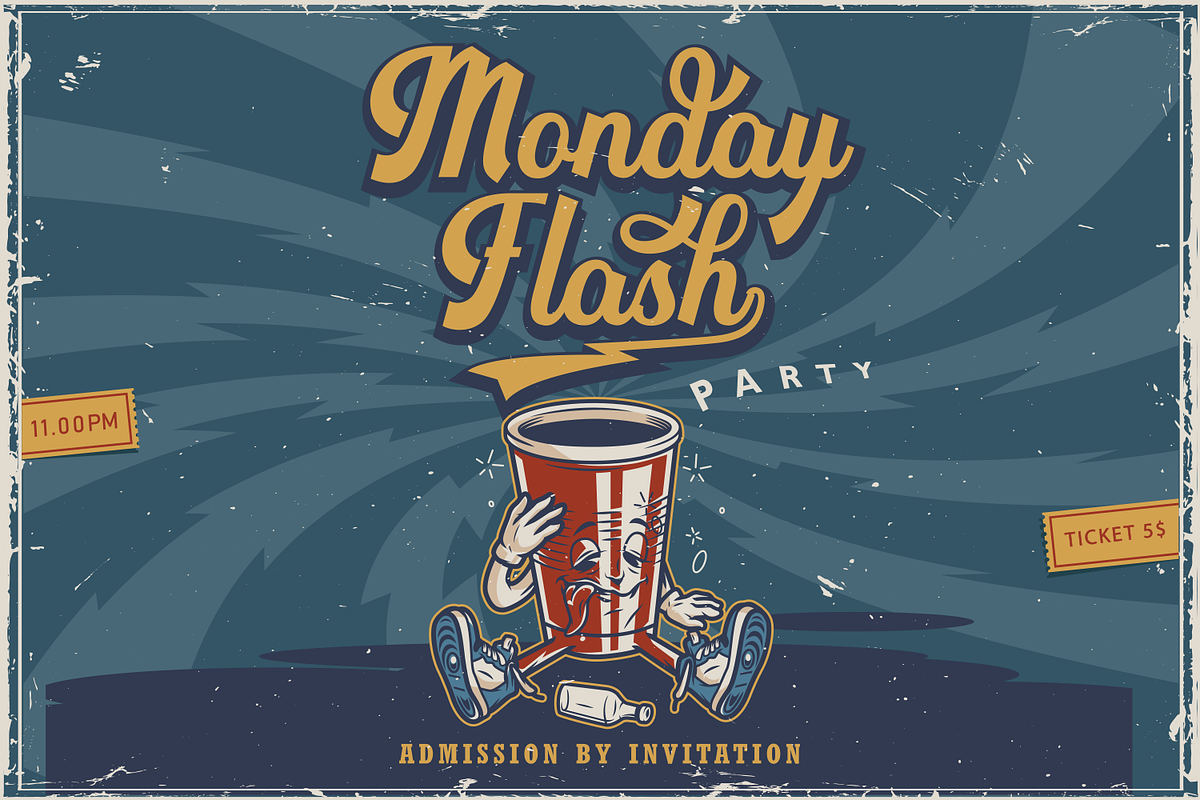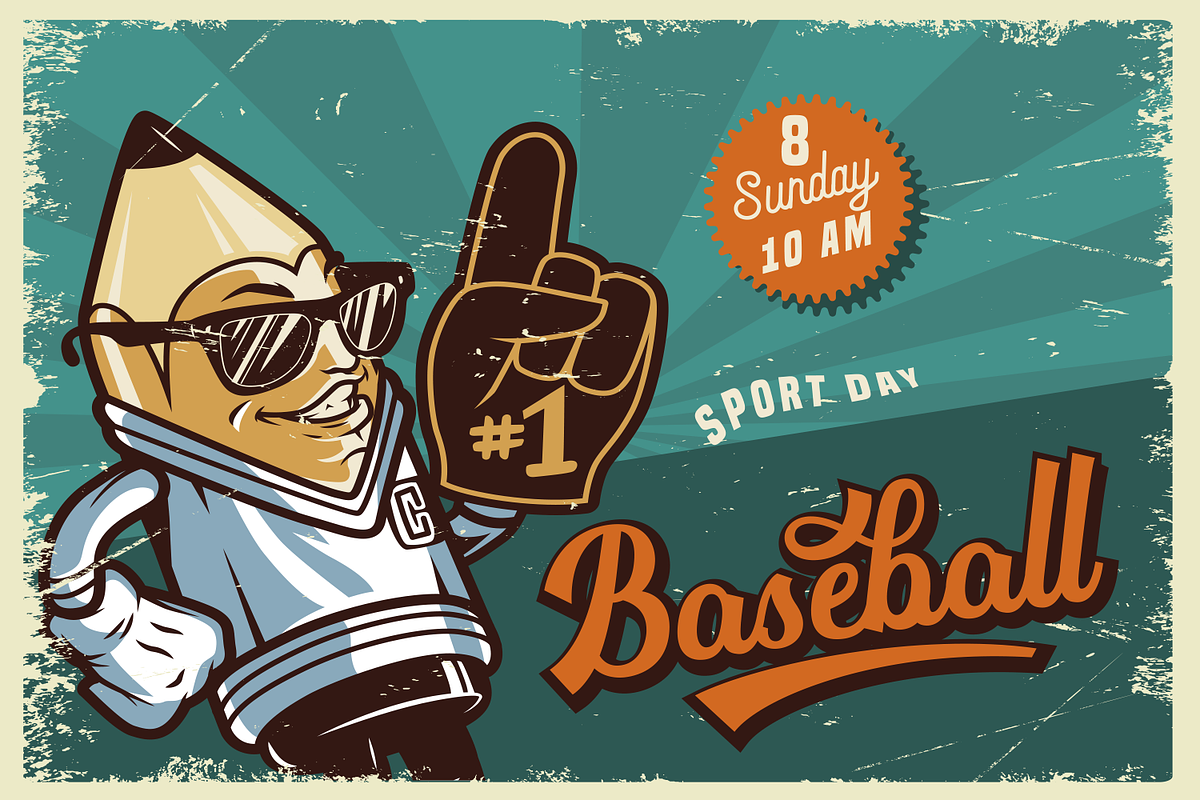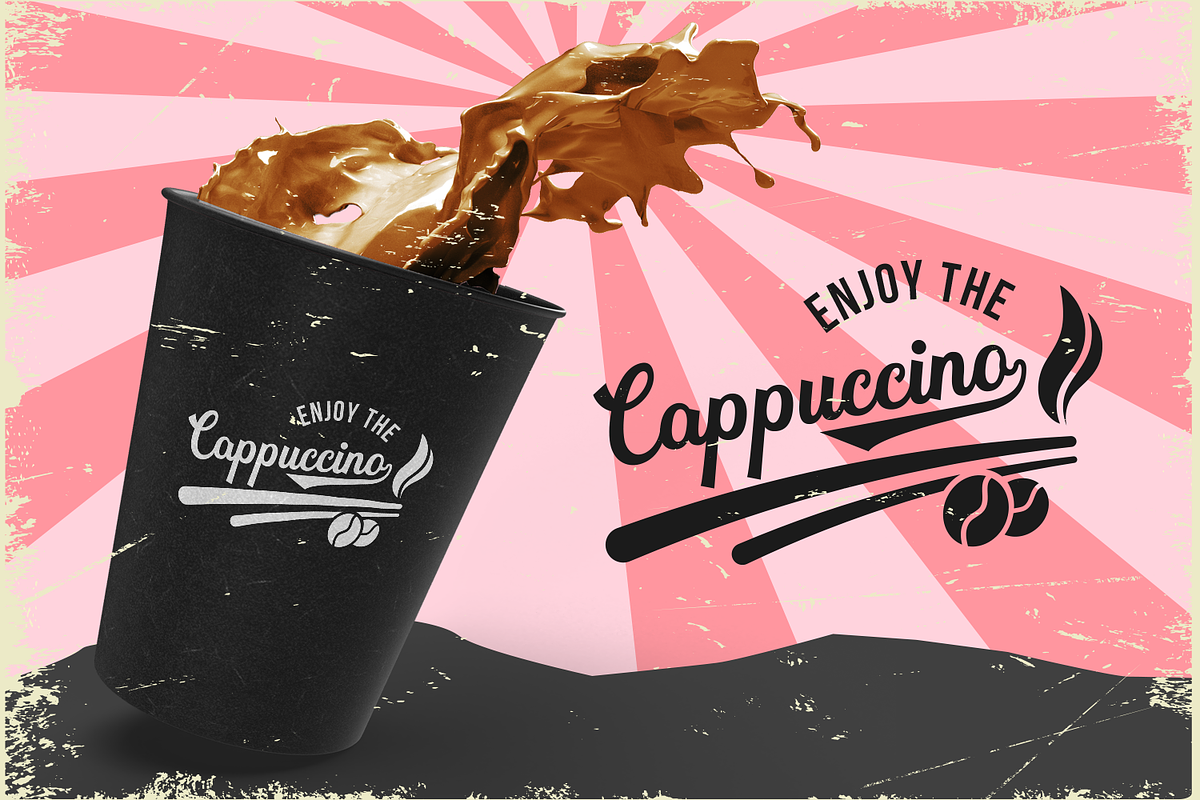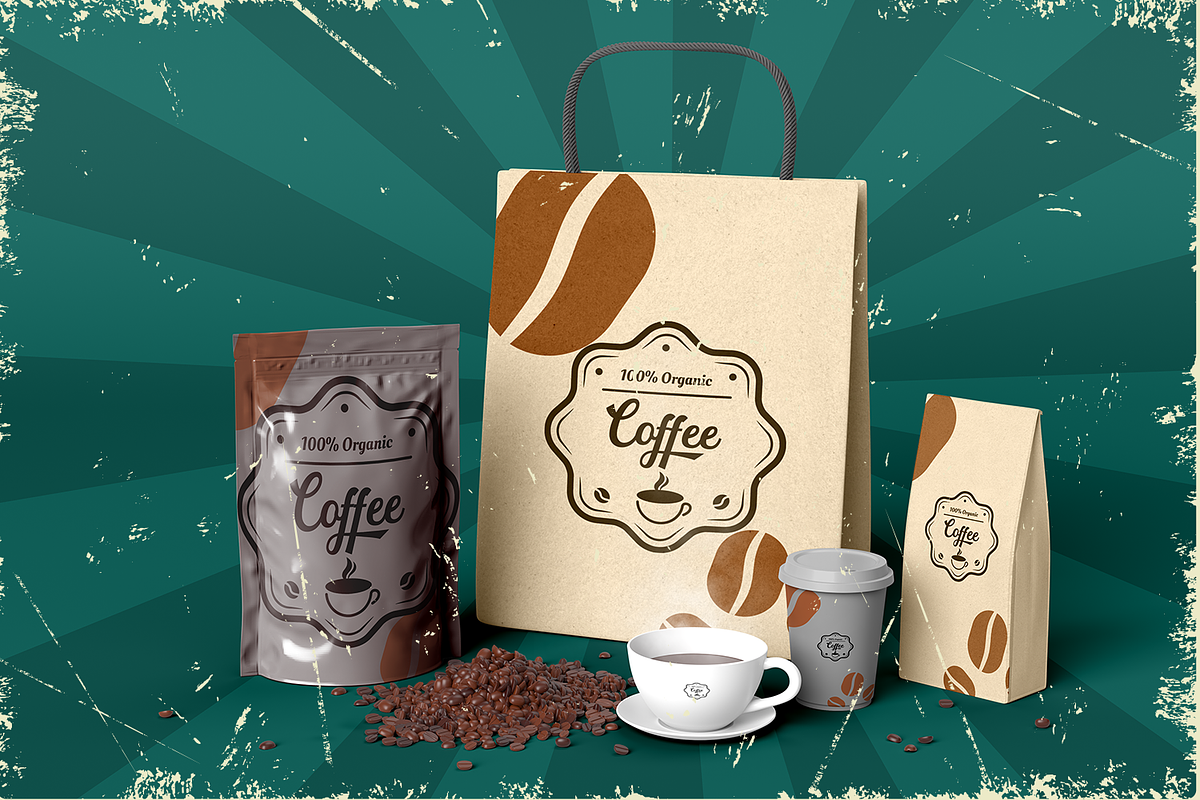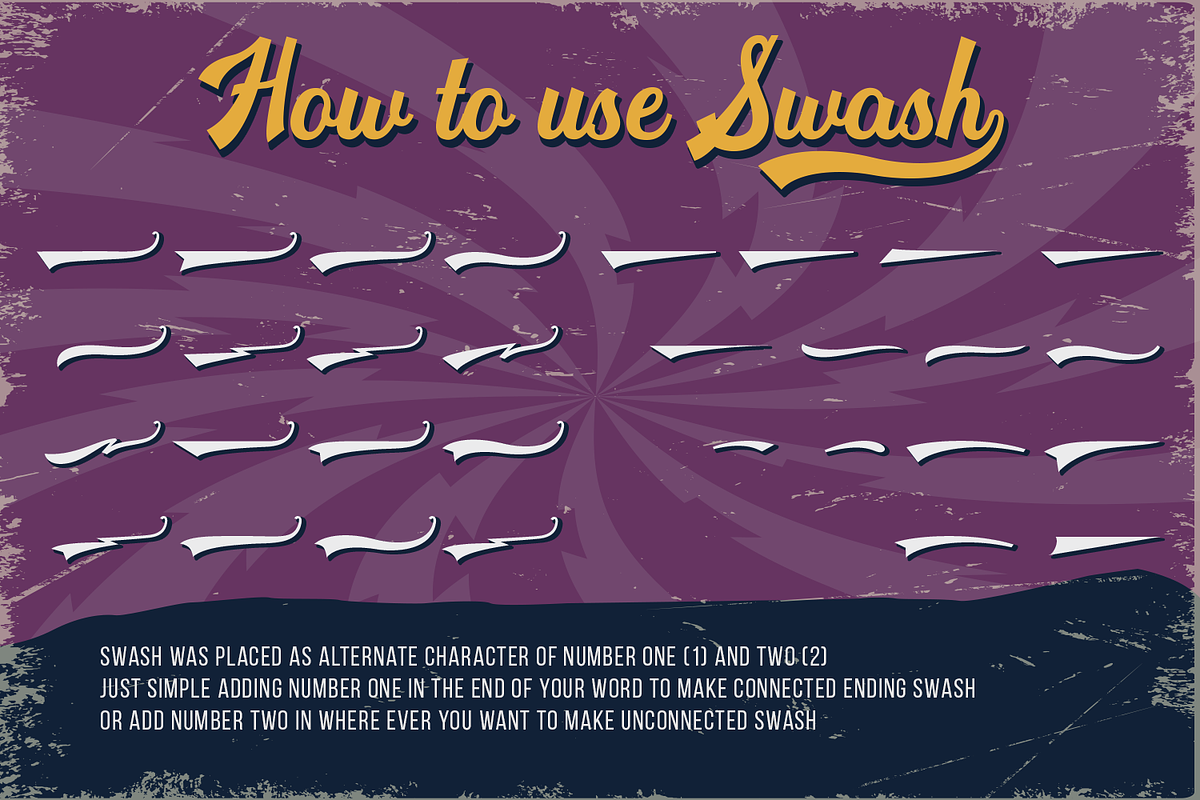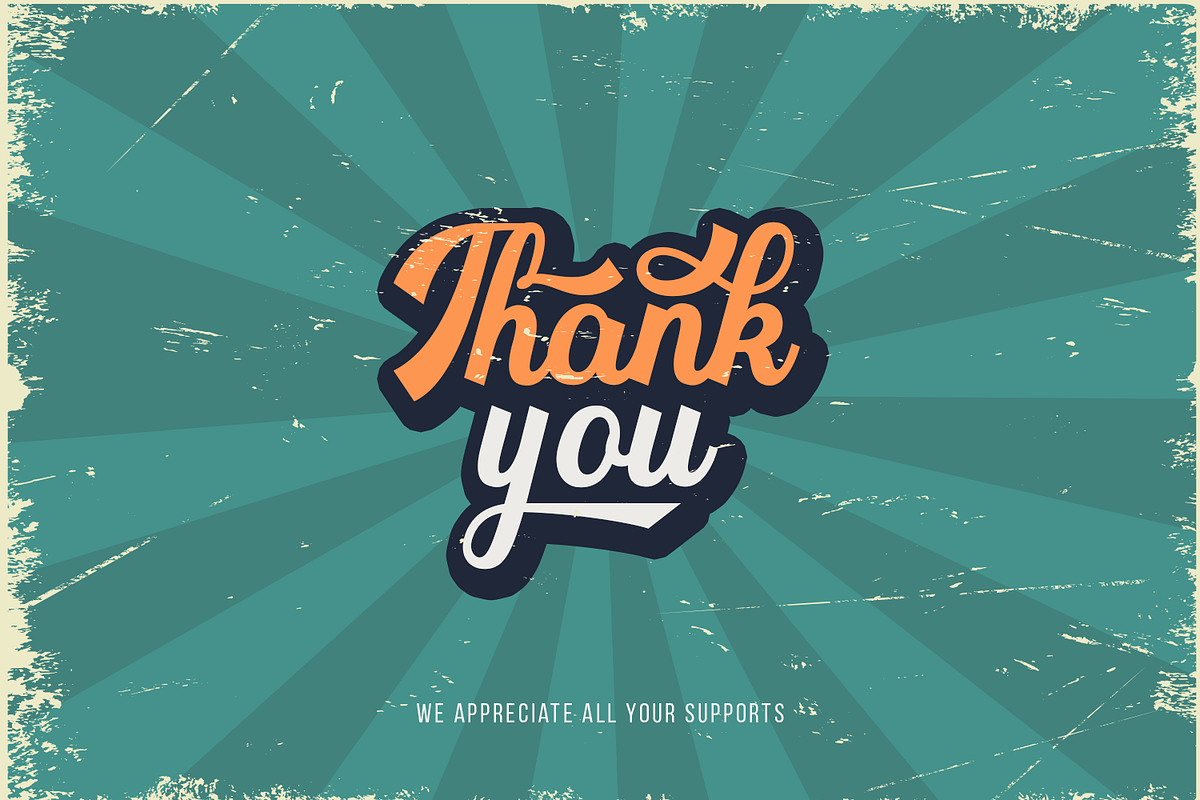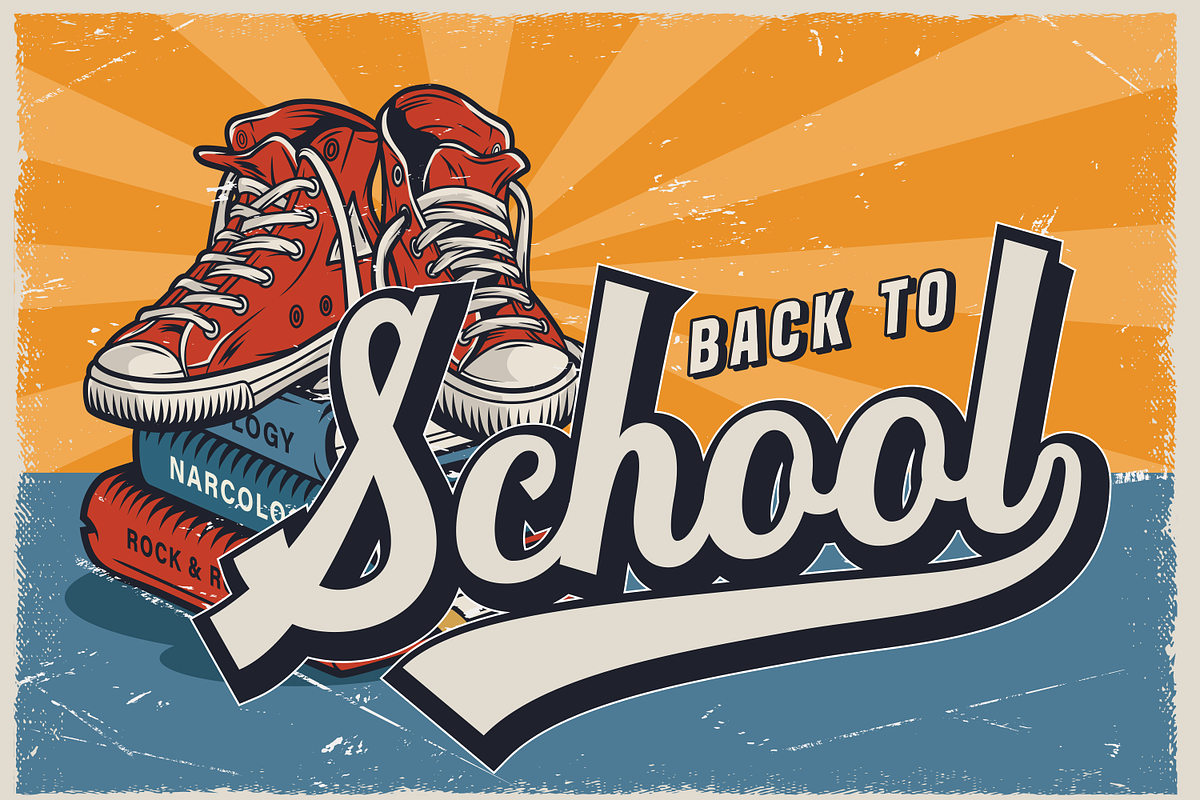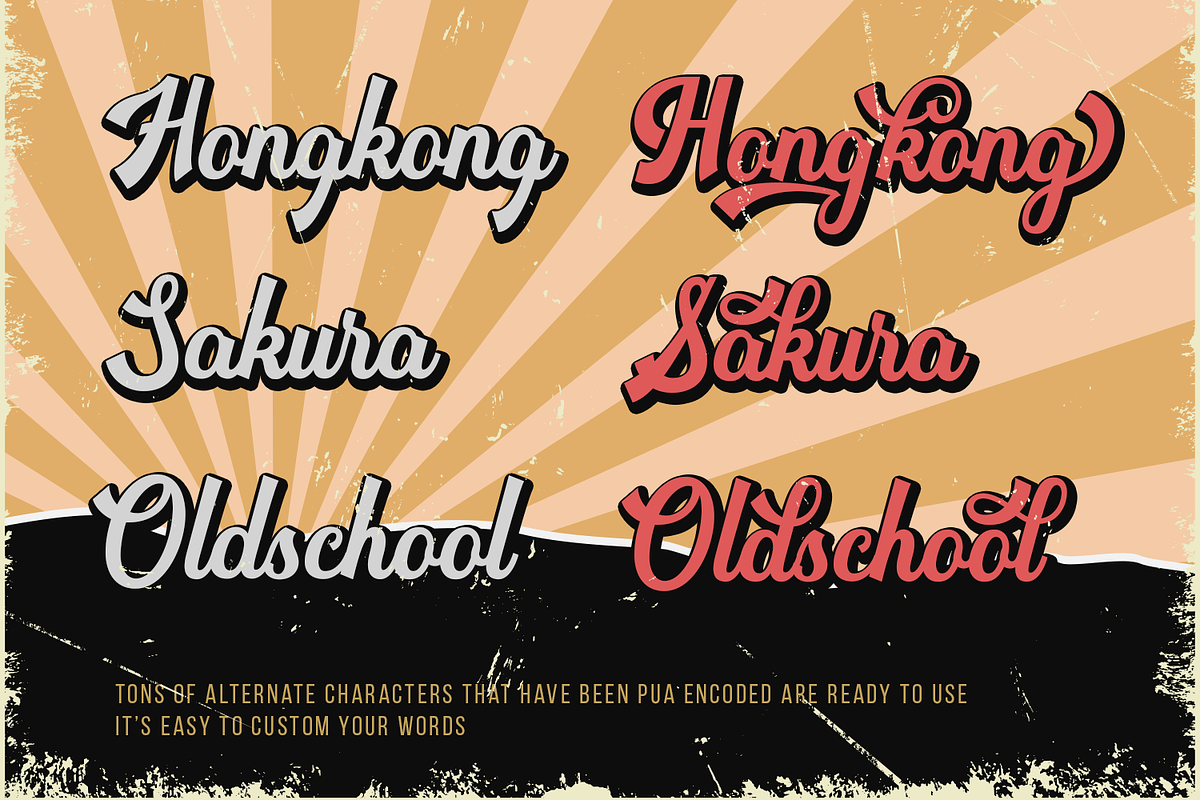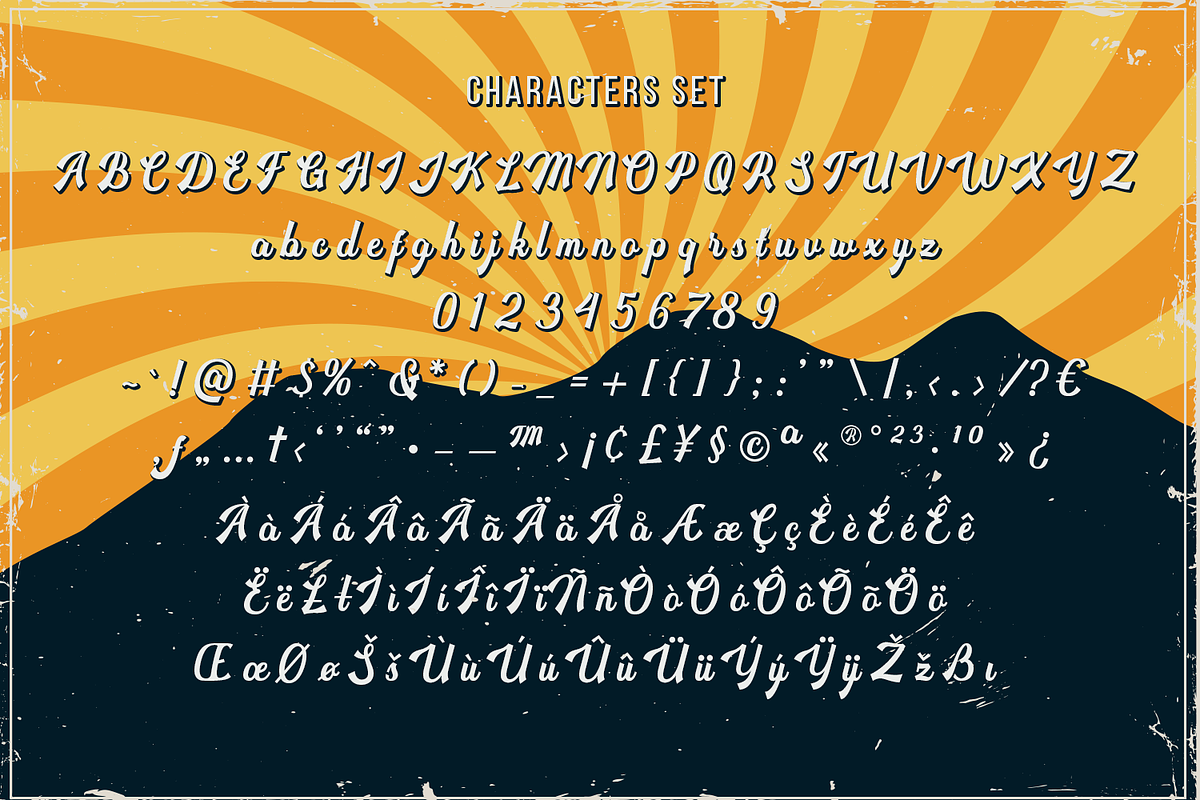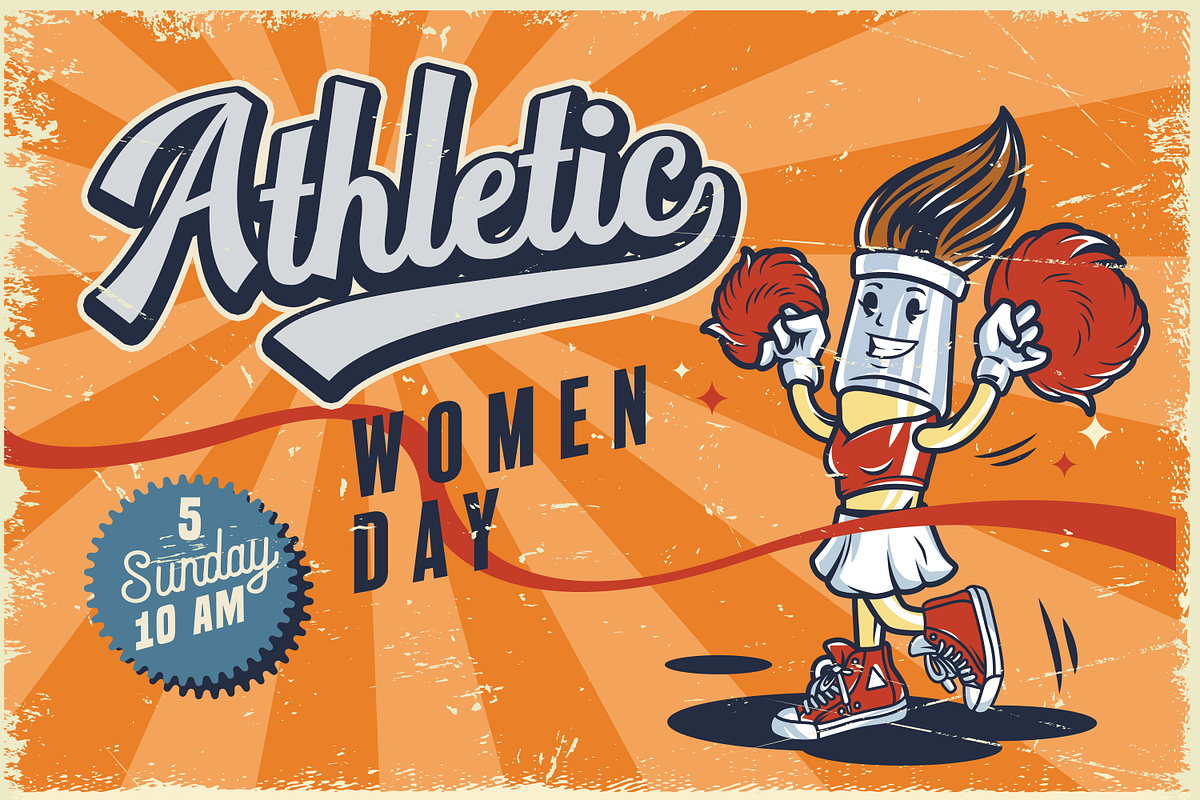
Heidenberg - Retro Font
Heidenberg is a hand lettering work with retro style.
This well designed font was inspired from classic typography designs in 60's to 80's. Heidenberg was packed with a lot of alternates and swashes (please check preview images), it will give you more choices to custom your words with this OpenType features. It also has multilingual support for standard latin characters.